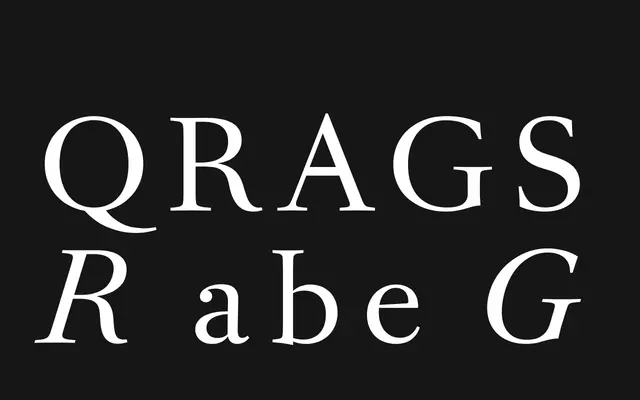
Romain du Roi
Newglyph · Ian Party
Ian Party's decades-long engagement with the 1692 Romain du Roi has produced a 108-style variable family with axes for weight, width and contrast, split between a text companion and a high-contrast headline face called Le Grand.
Commissioned by Louis XIV and designed by the Bignon Commission, the original Romain du Roi was among the first rationalist typefaces; Party's version honours that geometric rigour while pushing it toward something distinctly contemporary. Distinguishing details include double serifs on lowercase letters such as 'b', 'd', 'h' and 'k', crescent-shaped round forms and a characteristically adorned lowercase 'l'. The family spans 108 styles across variable weight, width and contrast axes, with small caps, alternates and a sculptural headline sub-family, Le Grand, designed for high-contrast display use.
Rooted in the Romain du Roi of 1692, one of the earliest rationalist serifs, Ian Party's interpretation sits firmly in the transitional category with its geometric axis, high contrast, and distinctive double serifs drawn from Enlightenment design principles.